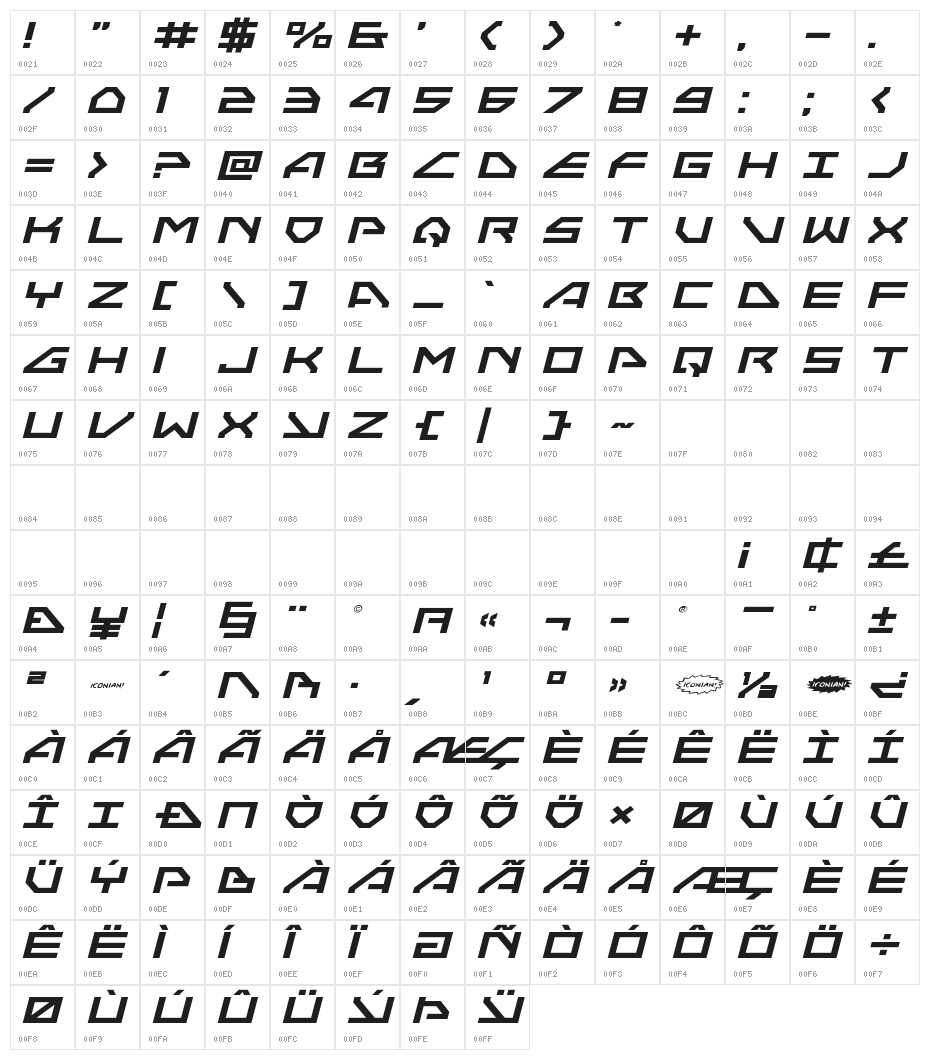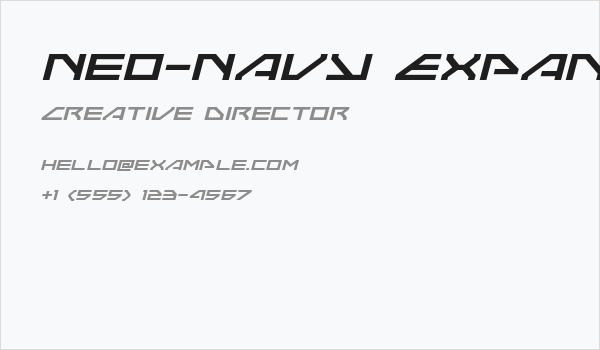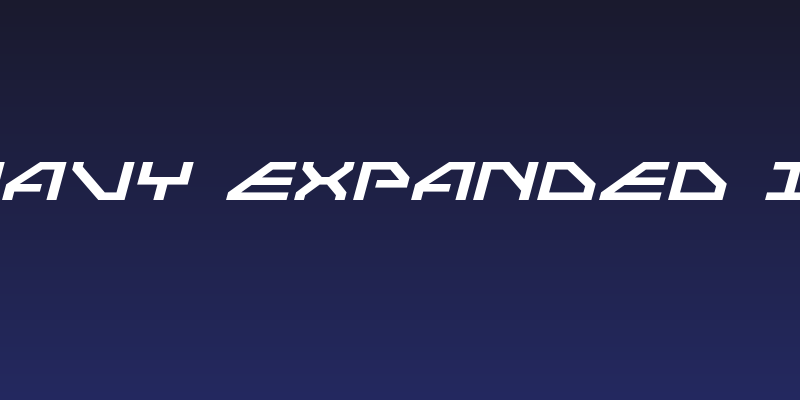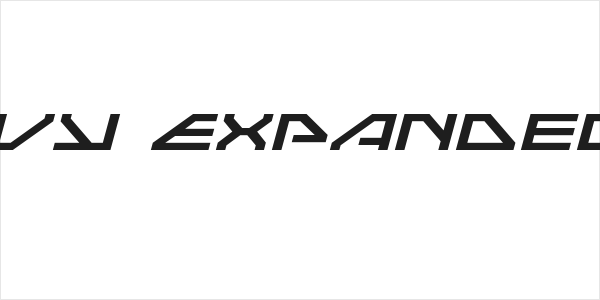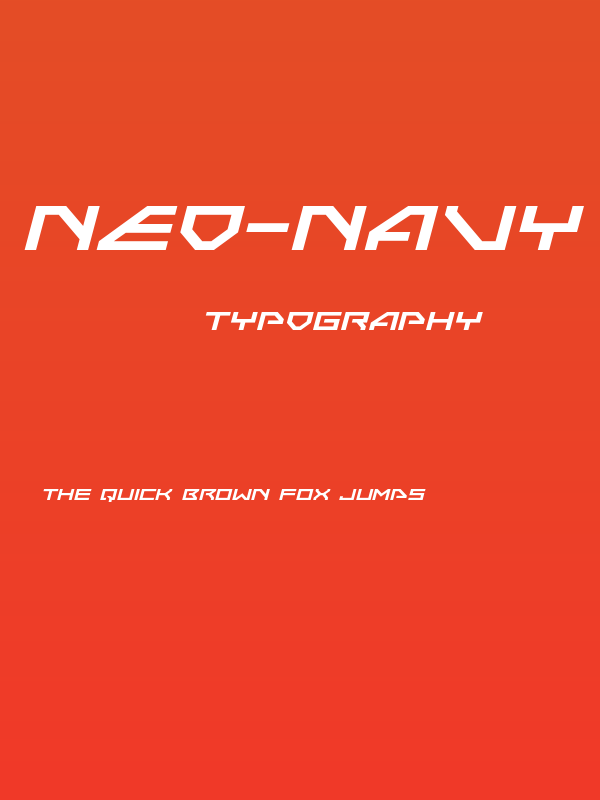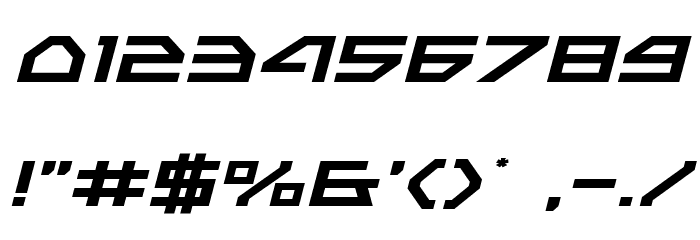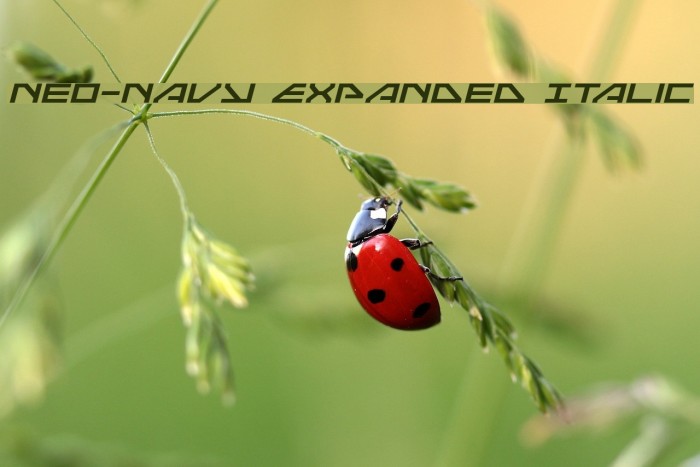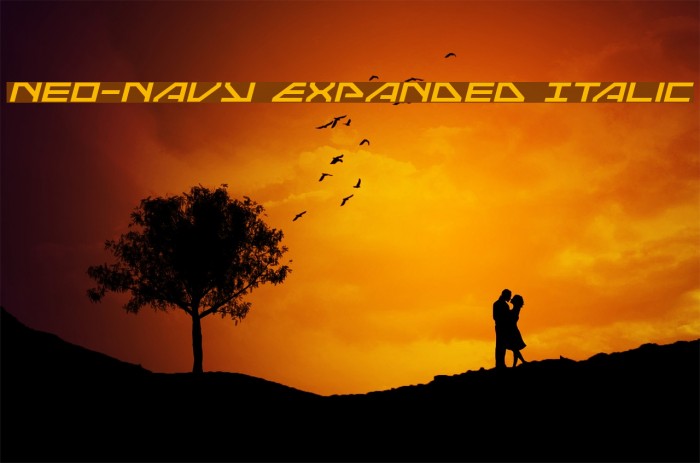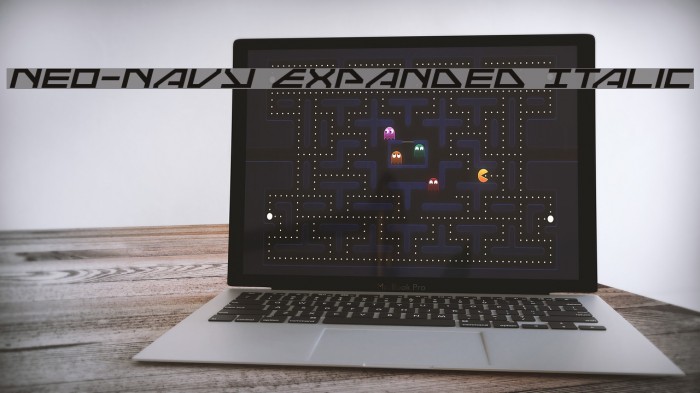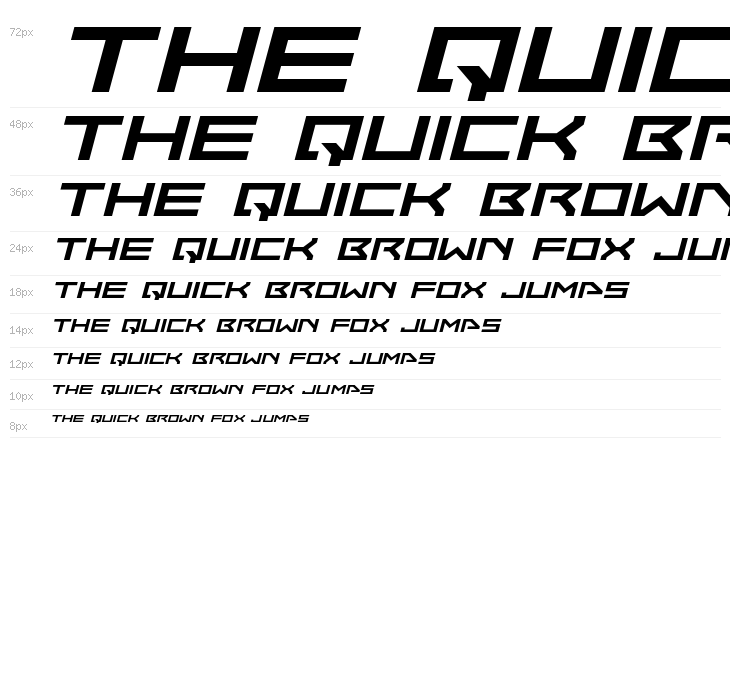
Neo-Navy Expanded Italic Font
This font features a futuristic and angular design with a distinct italic slant, giving it a dynamic and forward-moving appearance. The characters are bold and expanded, providing a strong visual impact. The geometric shapes and sharp edges contribute to its modern and tech-inspired aesthetic. The uppercase and lowercase letters maintain a consistent style, while the numerals and special characters integrate seamlessly with the overall design. This font is ideal for projects that require a bold and contemporary look, such as technology branding, sci-fi themes, or modern advertising.
| Proposed Projects | Ideal for technology branding, sci-fi themes, modern advertising, and dynamic headlines. |